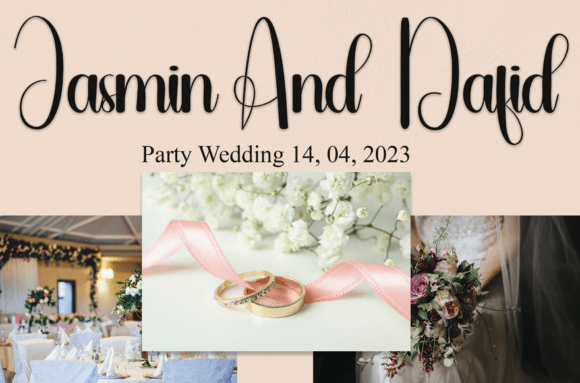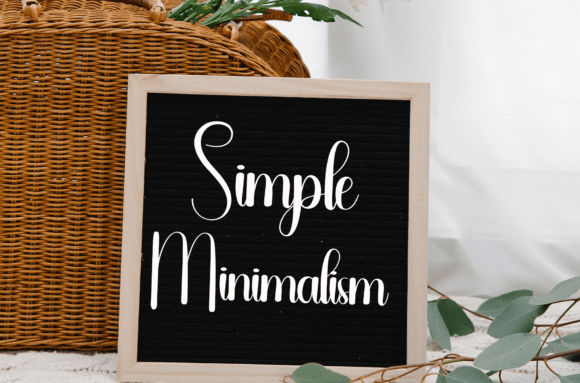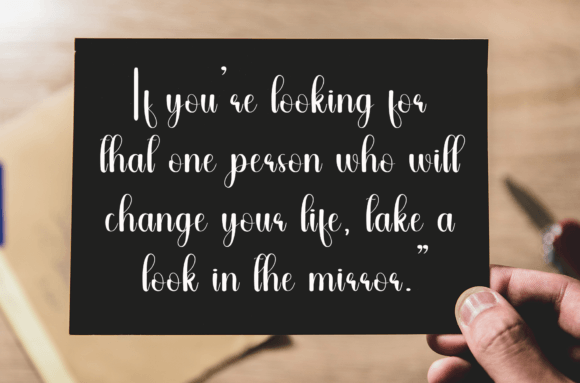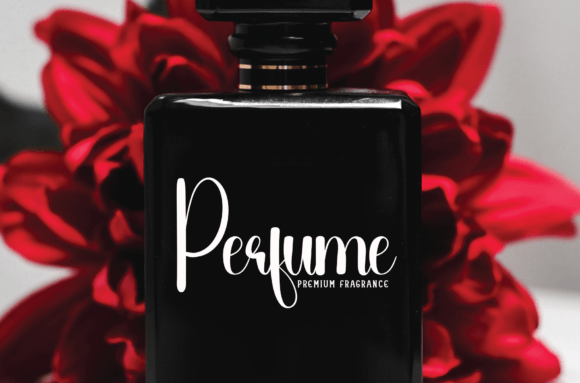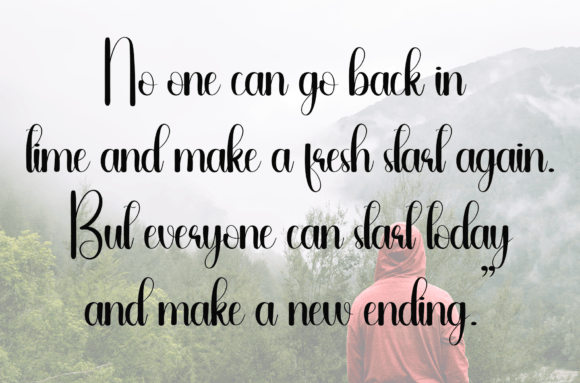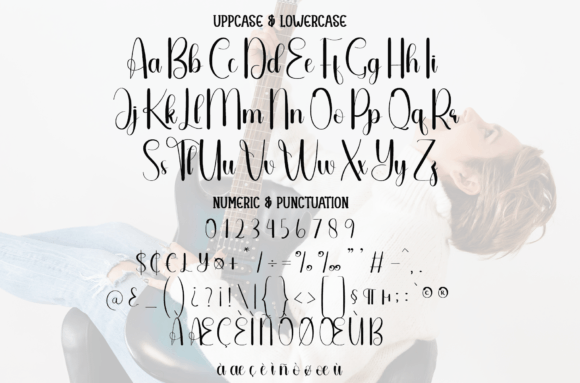
Introducing Backsound Font: The Sweet and Friendly Handwritten Font for Your Creative Projects
Are you a designer or crafter looking for a font that can add a touch of warmth and personality to your creative projects? Look no further than Backsound Font! This sweet and friendly handwritten font is perfect for writing wedding invitations, cards, or any other design that might need a fun touch. In this article, we’ll take a closer look at Backsound Font, its features, and how you can use it to elevate your designs.
What is Backsound Font?
Backsound Font is a beautiful, handwritten font that exudes a sense of freshness and neatness. Its unique characters and charming style make it an ideal choice for designers and crafters who want to add a personal touch to their work. Whether you’re creating wedding invitations, greeting cards, or social media graphics, Backsound Font is sure to make your designs stand out.
Key Features of Backsound Font
- Handwritten style: Backsound Font has a lovely handwritten style that gives it a personal and friendly feel.
- Fresh and neat: The font’s fresh and neat design makes it perfect for a wide range of creative projects.
- Easy to read: Backsound Font is highly legible, making it easy to read and understand.
- Versatile: This font can be used for a variety of design projects, from wedding invitations to social media graphics.
How to Use Backsound Font in Your Designs
Backsound Font is incredibly versatile and can be used in a variety of design projects. Here are some ideas to get you started:
- Wedding invitations: Add a touch of elegance and sophistication to your wedding invitations with Backsound Font.
- Greeting cards: Create beautiful and personalized greeting cards for special occasions like birthdays, anniversaries, and holidays.
- Social media graphics: Use Backsound Font to create eye-catching social media graphics that showcase your brand’s personality.
- Blog posts: Add a personal touch to your blog posts with Backsound Font, making them more engaging and readable.
Why Choose Backsound Font?
With so many fonts available, why choose Backsound Font? Here are a few reasons why:
- Unique style: Backsound Font has a unique style that sets it apart from other fonts.
- Easily readable: The font is highly legible, making it easy to read and understand.
- High-quality: Backsound Font is a high-quality font that is designed to deliver exceptional results.
Tips for Using Backsound Font Effectively
Here are some tips to help you use Backsound Font effectively in your designs:
- Pair it with other fonts: Experiment with pairing Backsound Font with other fonts to create a unique and visually appealing design.
- Use it for headings and titles: Backsound Font is perfect for headings and titles, adding a touch of personality to your designs.
- Adjust the font size: Experiment with different font sizes to create visual hierarchy and emphasis in your designs.
Backsound Font is a beautiful, handwritten font that can add a touch of warmth and personality to your creative projects. With its unique style, fresh and neat design, and high legibility, it’s an ideal choice for designers and crafters who want to elevate their designs. Whether you’re creating wedding invitations, greeting cards, or social media graphics, Backsound Font is sure to make your designs stand out. So why wait? Download Backsound Font today and start creating stunning designs that showcase your creativity!